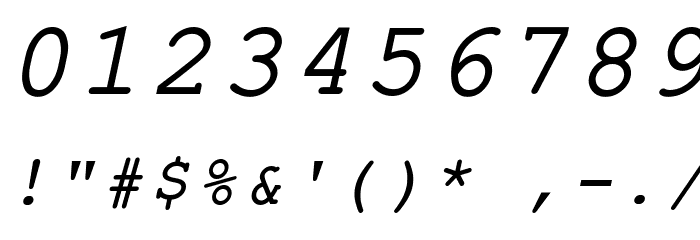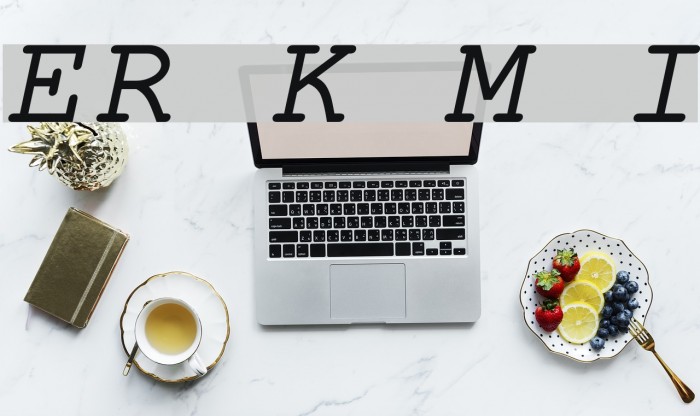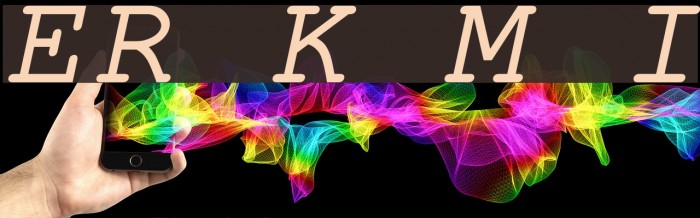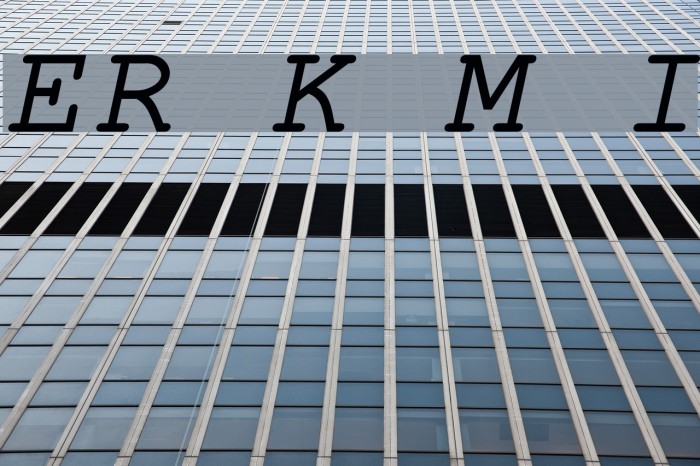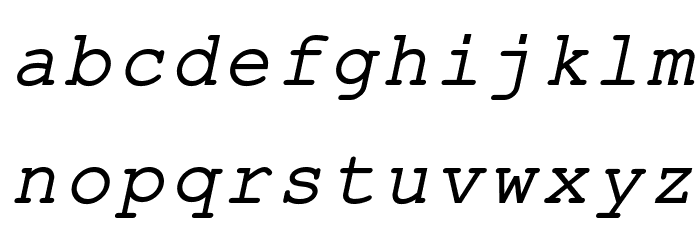
ER Kurier Mac Italic Font
This font features a classic monospaced style with a distinct italic slant, giving it a dynamic and slightly informal appearance. Each character maintains a consistent width, which is characteristic of monospaced fonts, making it ideal for coding and tabular data. The italic style adds a touch of elegance and movement, distinguishing it from standard monospaced fonts. The strokes are uniform, with medium contrast, providing clarity and readability. The font includes a full set of uppercase and lowercase letters, numbers, and a variety of special characters, ensuring versatility for different applications.
A monospaced italic font with medium contrast and consistent character width.
• Proposed Projects: Ideal for coding environments, technical documentation, and any project requiring a classic yet dynamic monospaced typeface.